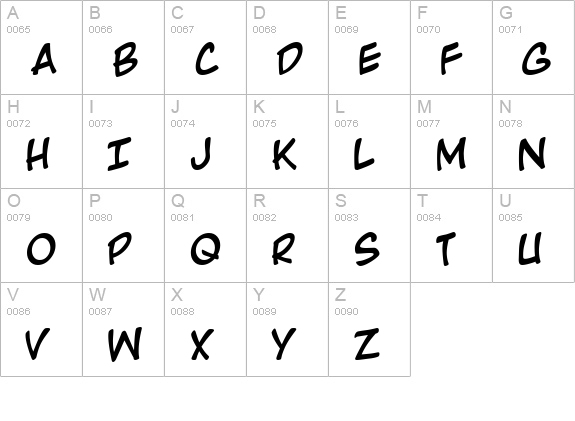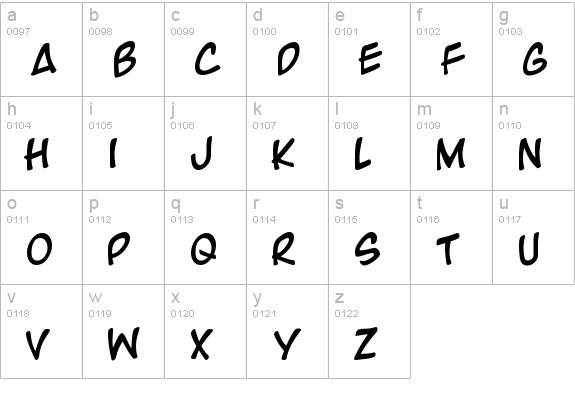
Rooftop Run Font Details
Introducing the mesmerizing Rooftop Run font, a stylish and modern typeface that captures the essence of urban energy and sophistication. With its sleek lines and dynamic curves, Rooftop Run is perfect for adding a touch of contemporary flair to your design projects. This versatile font is free to download at FontsMarket.com, making it accessible for all creatives looking to elevate their work with a touch of urban chic. Whether you're designing a sleek logo, eye-catching posters, or trendy apparel, Rooftop Run is sure to make a bold statement and leave a lasting impression. Embrace the urban vibe and bring a touch of modern elegance to your designs with Rooftop Run font. Download it for free today at FontsMarket.com and let your creativity soar to new heights!